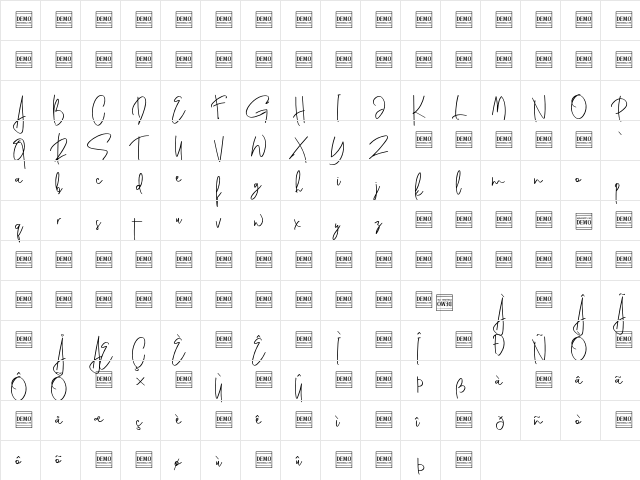
Genit Regular
| Foundry | Motokiwo |
| Designer | Anton Cahyono |
Design Context for Genit Typeface
Genit is a composed and adaptable typeface that performs quietly and consistently across a wide range of design contexts.